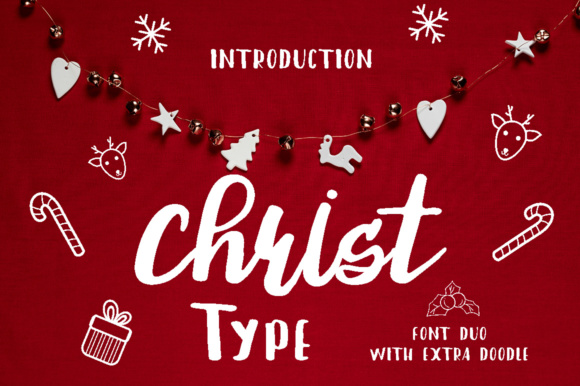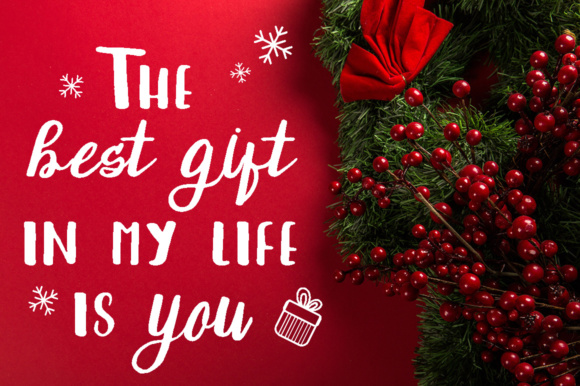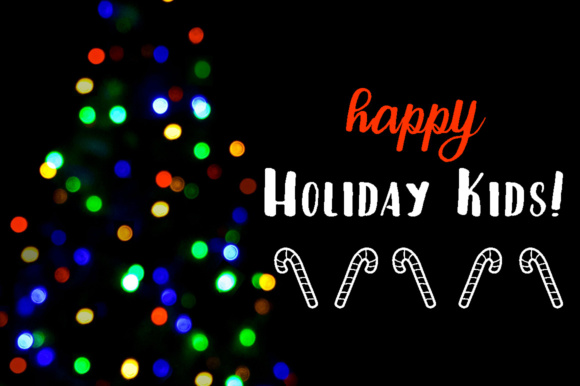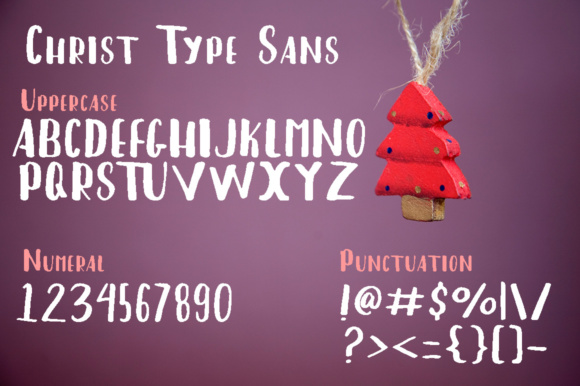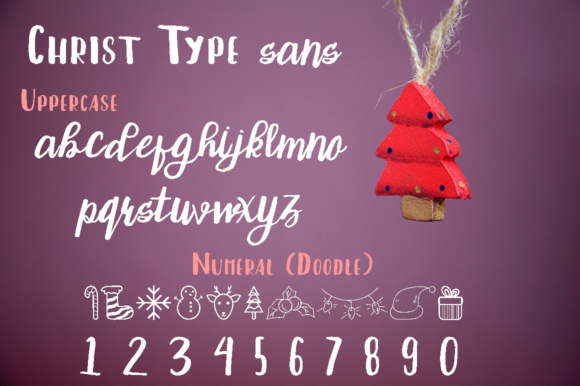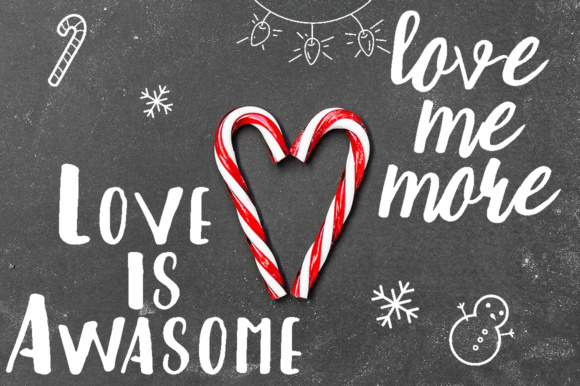
Christ Type Duo Font
About Christ Type Duo Font
The Christ Type is a fun, handwritten font duo that will perfectly fit in winter and Christmas projects. It can be used for various purposes such as: t-shirts, posters, cards, etc. It comes in Sans font and script font, with extra doodles included in the numeral script font.